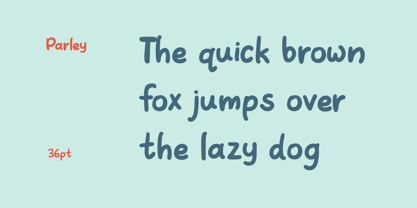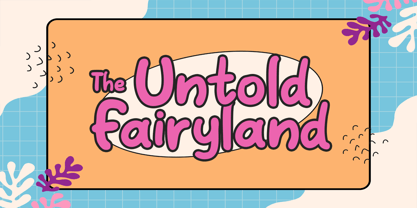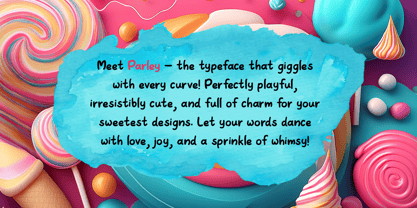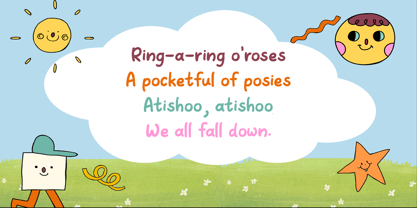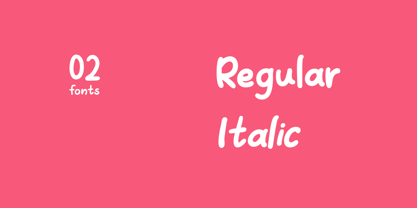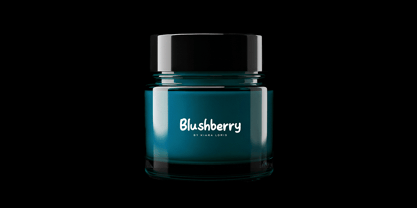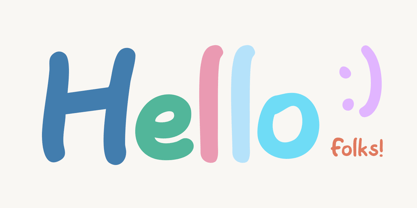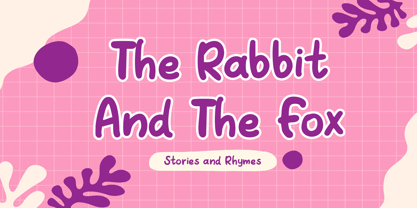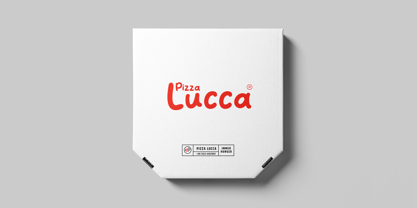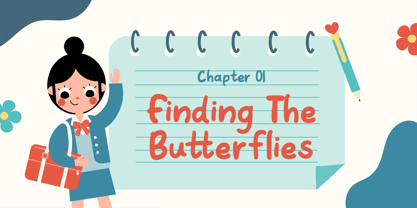
Parley
La familia tipográfica Parley fue diseñada por Lisha Joseph y publicada por Designova. Parley contiene 2 estilos y opciones de paquete familiar.
Parley – a quirky and casual handwritten font that brings the feel of spontaneous conversation and creative sketches to life. Inspired by quick notes, dialogue bubbles, and hand-drawn storyboards, Parley captures the ease and charm of everyday handwriting with a modern twist.
Though its design remains clean and approachable, Parley carries a distinct personality, making it an excellent choice for posters, comic panels, playful branding, web graphics, merchandise, and social media posts. Its informal yet expressive style adds warmth and relatability to any design. Check out the previews above to explore its versatility and visual rhythm.
Parley supports over 160 languages, making it a truly global typeface. It includes Extended Latin character sets and offers compatibility with a wide range of linguistic scripts—from widely spoken languages like English, French, Spanish, and Portuguese to regional and Indigenous ones like Aymara, Chamorro, Kalaallisut, Māori, and Zulu. Whether your project is local or international, Parley ensures your message is seen and understood across borders.